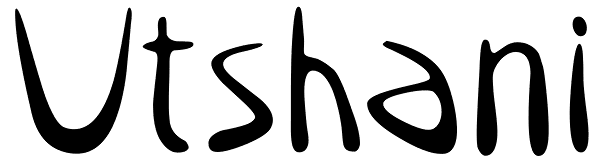
Utshani
Utshani means "grass" in the African language: Zulu. Grass has softness but it also has great strength and many African craft implements are made from it. When we describe someone as being "like the grass", it is meant as a compliment for it means...